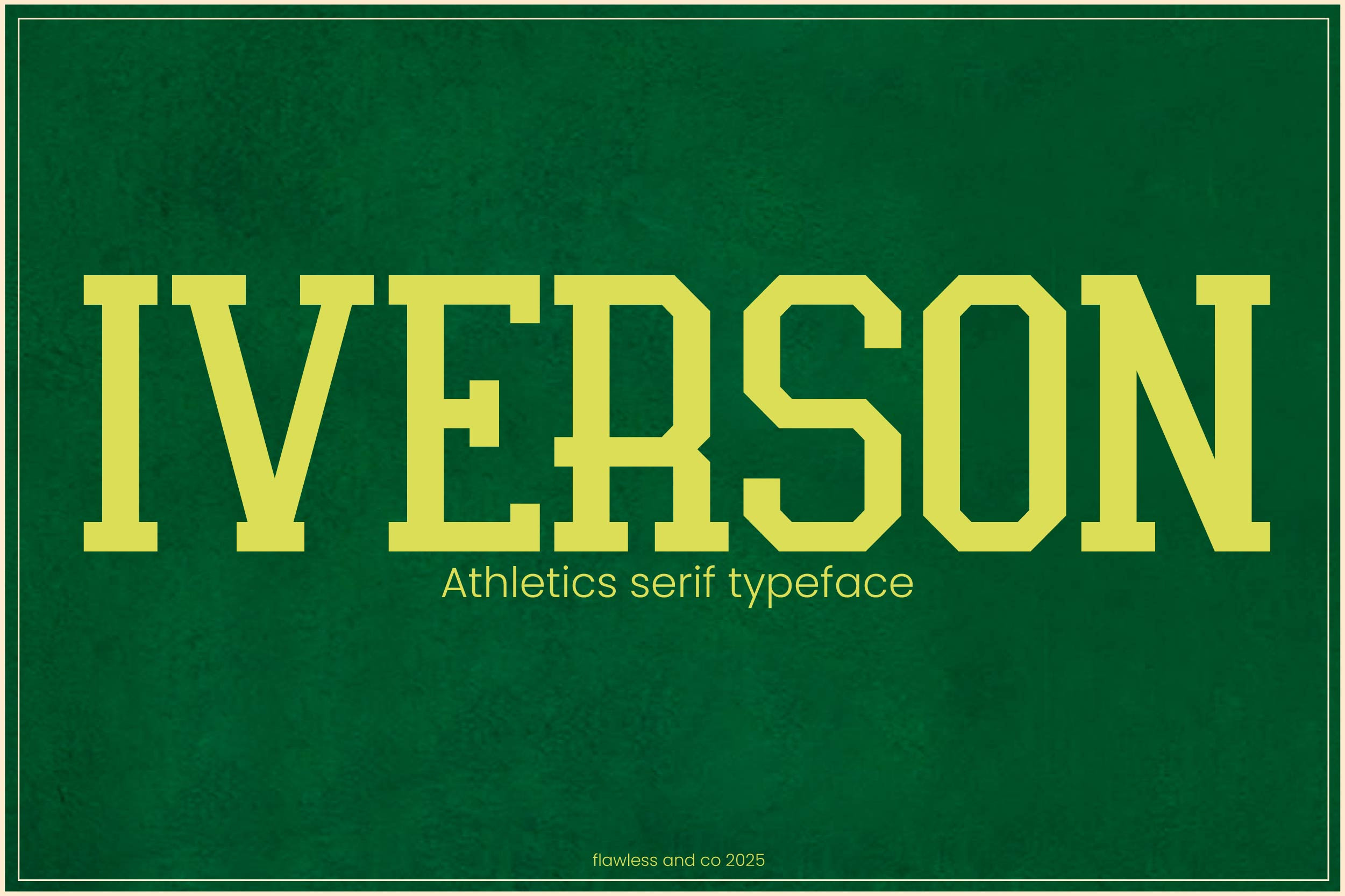
Iverson - Sports Serif Font
IVERSON – Athletics Serif Typeface
IVERSON is a bold, confident serif typeface inspired by classic sports lettering and collegiate traditions. With its strong lines, sharp serifs, and clean construction, IVERSON is perfect for projects that need to convey power, pride, and performance. Whether you're designing for a varsity team, sportswear brand, or retro-inspired branding, IVERSON delivers an all-American athletic feel with modern polish.
- Sports branding & logos
- College & varsity-themed apparel
- Athletic posters & event graphics
- Editorial titles & magazine covers
- Packaging for energy drinks, gear, or merchandise
IVERSON stands tall on every surface — bold, timeless, and full of competitive spirit.
Who Should Use IVERSON?
IVERSON is made for designers, creators, and brands seeking a strong, athletic aesthetic rooted in tradition and confidence. This typeface is perfect for:
- Sports teams & coaches needing bold, varsity-style lettering for jerseys, banners, and branding
- School and university designers creating spirited, academic visuals for events, merchandise, or yearbooks
- Apparel brands focused on vintage athleticwear or collegiate-inspired fashion
- Event organizers promoting tournaments, championships, and athletic showcases
- Logo designers crafting impactful identities for gyms, sports clubs, or training programs
- Editorial teams working on sports-themed covers, magazine layouts, or motivational features
Whether you're designing for competition, community, or culture, IVERSON delivers that classic sports feel with a timeless, commanding presence.
A Must-Have Font for Brand Creators and Designers: IVERSON
IVERSON is more than just a typeface — it’s a visual statement. Designed for brand creators and designers who seek power, pride, and performance, this bold serif font takes your designs to the next level. With its strong lines, sharp serifs, and clean construction, IVERSON exudes confidence and timeless appeal, making it an ideal choice for athletic branding. Whether you're crafting varsity team logos, sportswear packaging, or event graphics, IVERSON delivers a bold, collegiate aesthetic that stands out in the competitive world of sports. Its all-American, retro-inspired vibe is infused with modern polish, ensuring your brand feels both powerful and refined.
- Sports Branding & Logos: Make a bold statement with logos that stand tall and command attention.
- Varsity-Themed Apparel & Merchandise: Infuse your products with a sense of athletic pride and t* radition.
- Event Graphics & Posters: Bring dynamic energy to your promotional designs.
- Editorial Titles & Magazine Covers: Add an athletic, yet sophisticated edge to your editorial layouts.
- Packaging for Energy Drinks & Gear: Elevate your packaging with a strong, energetic look that resonates with performance-driven consumers.
IVERSON is the font for those who want to communicate strength, endurance, and pride through their design. Bold, timeless, and full of competitive spirit, it’s an essential typeface for any designer working in the world of sports and performance.
Why Choose IVERSON for Athletics Sports Brand and Logo Projects?
IVERSON is the ideal font for sports branding with its bold, impactful design and classic collegiate style. It’s perfect for logos, apparel, event graphics, and packaging, offering a strong, recognizable visual identity. Inspired by traditional sports lettering, it brings a sense of pride and athleticism while balancing modern design elements. Its clean lines and sharp serifs ensure your brand stands out with power and confidence. Perfect for creating memorable sports logos that resonate with strength and tradition.